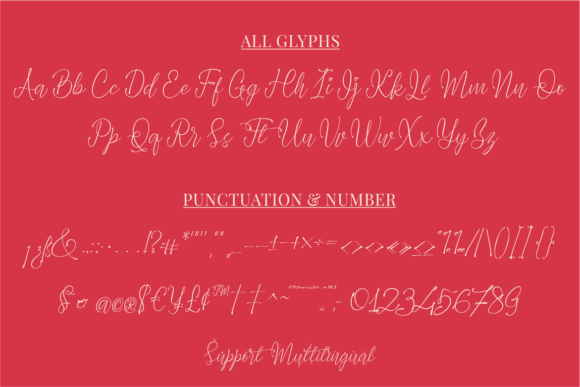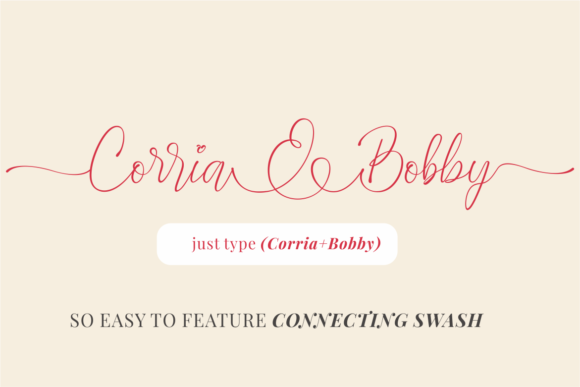
Corria & Bobby Font
db-ku.com - Script & Handwritten -- Corria & Bobby is a thin lettered and delicate handwritten font. This versatile script font has a wide spectrum of applications ranging from greeting cards to headlines and is guaranteed to add a romantic feel to your next project.